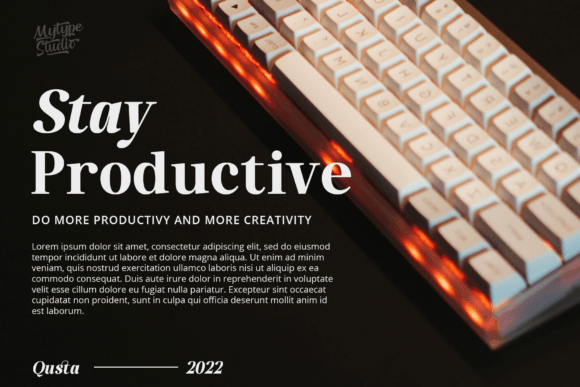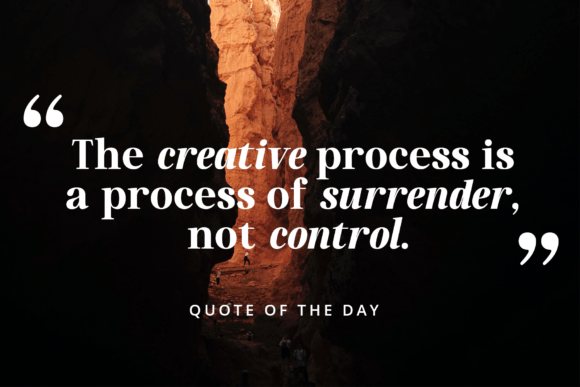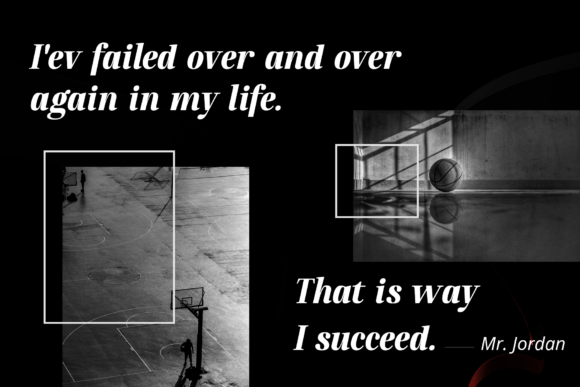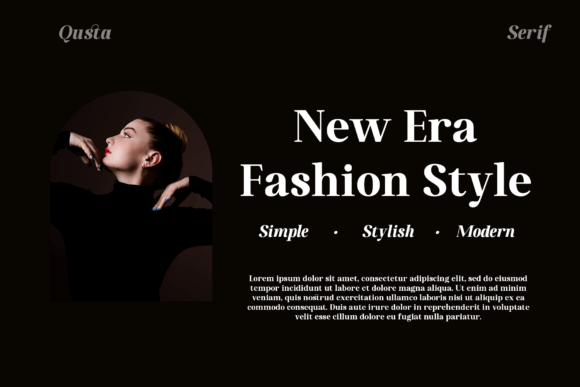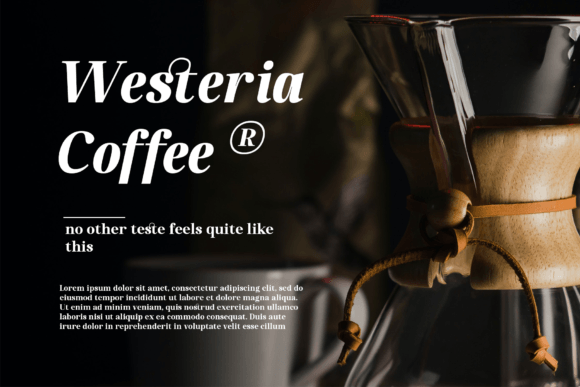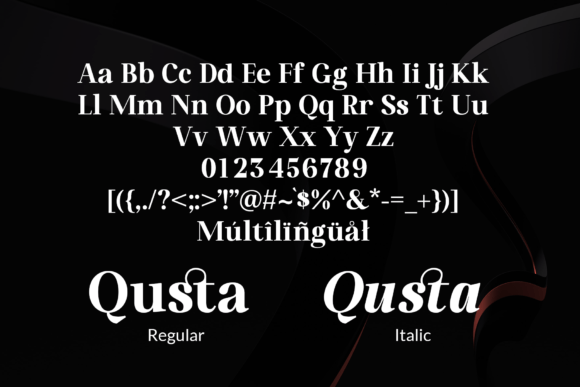
Introduction to Qusta Font
Do you remember the moment when you stumbled upon the perfect font for your design project? The one that instantly elevates your creative vision and sets your work apart from the rest? For many designers, this moment is a treasure to behold. For those in search of that elusive font, we’re excited to introduce you to the Qusta Font – a modern serif font that embodies elegance and charm in every character.
The Qusta Font is a valuable resource for designers seeking a high-quality, sophisticated font to elevate their creative projects. With its versatility and timeless appeal, it’s perfect for luxury logos, branding, classy editorial designs, women’s magazines, cosmetic brands, and more. Whether you’re working on a promotional design or a fashion campaign, this font is sure to make your work shine with its sleek and sophisticated look.
Key Features of Qusta Font
- High-quality design resource suitable for creative projects, with a unique and elegant style.
- Features a clean and modern design, ideal for use in logos, branding, and other creative projects.
- Designed to be highly legible and versatile, making it suitable for a wide range of applications, from print to digital media.
Honest Review: Qusta Font
I recently stumbled upon the Qusta Font and was excited to give it a try. As a designer, I’m always on the lookout for high-quality fonts that can elevate my creative projects.
Here’s what works well: ✨ The Qusta Font has a beautiful, elegant design that makes it perfect for titles, headings, and even body text. The font comes in both regular and bold weights, making it versatile for various design needs. I also appreciate that it has a transparent background, making it easy to layer and manipulate in design software.
Here are some features I love:
- High-quality design: The font’s design is top-notch and can add a touch of sophistication to any project.
Qusta Font: A High-Quality Design Resource
The Qusta Font is a versatile and stylish font perfect for creative projects. Its unique design and high-quality features make it an excellent addition to any design resource.
Tips for Getting the Most Out of Qusta Font
For the best results, use the Qusta Font on a transparent background to create a clean and professional look. You can also experiment with different font sizes and styles to add visual interest to your design.
The Qusta Font is perfect for creative projects such as logos, brochures, and social media graphics. It’s also great for use in presentations and documents where a stylish and professional font is needed.